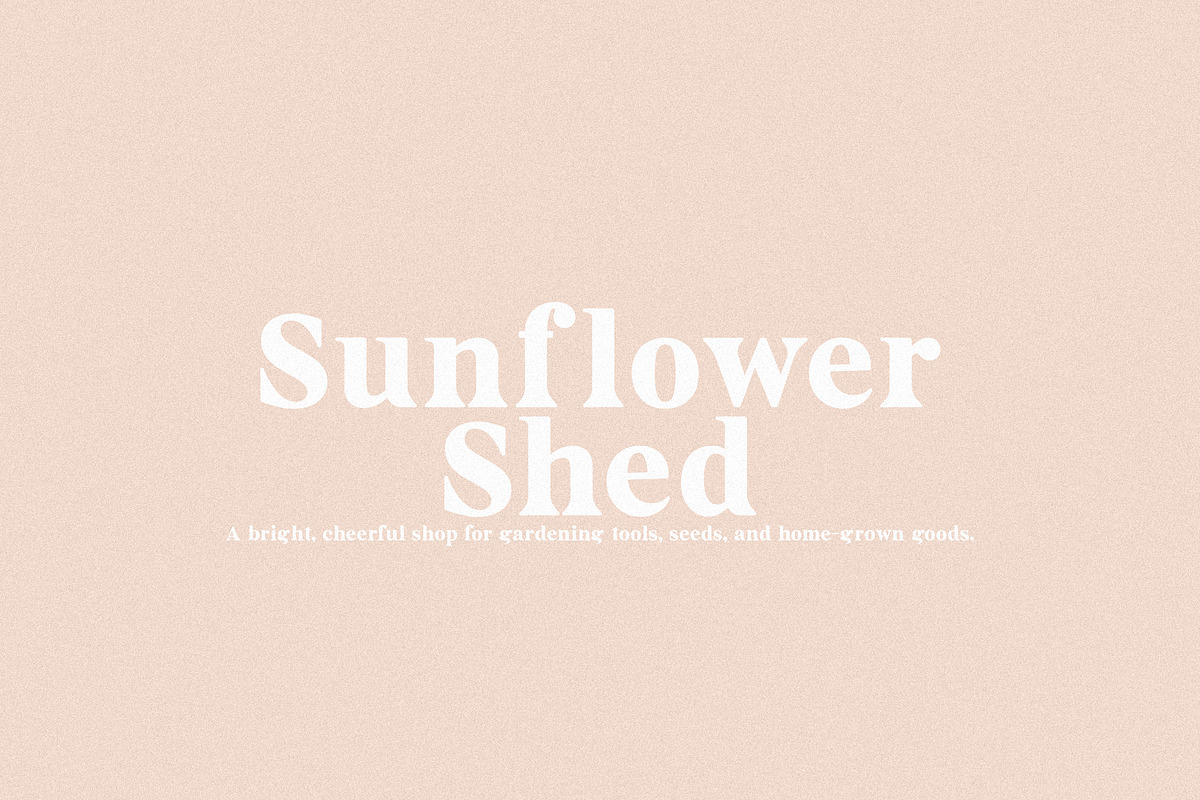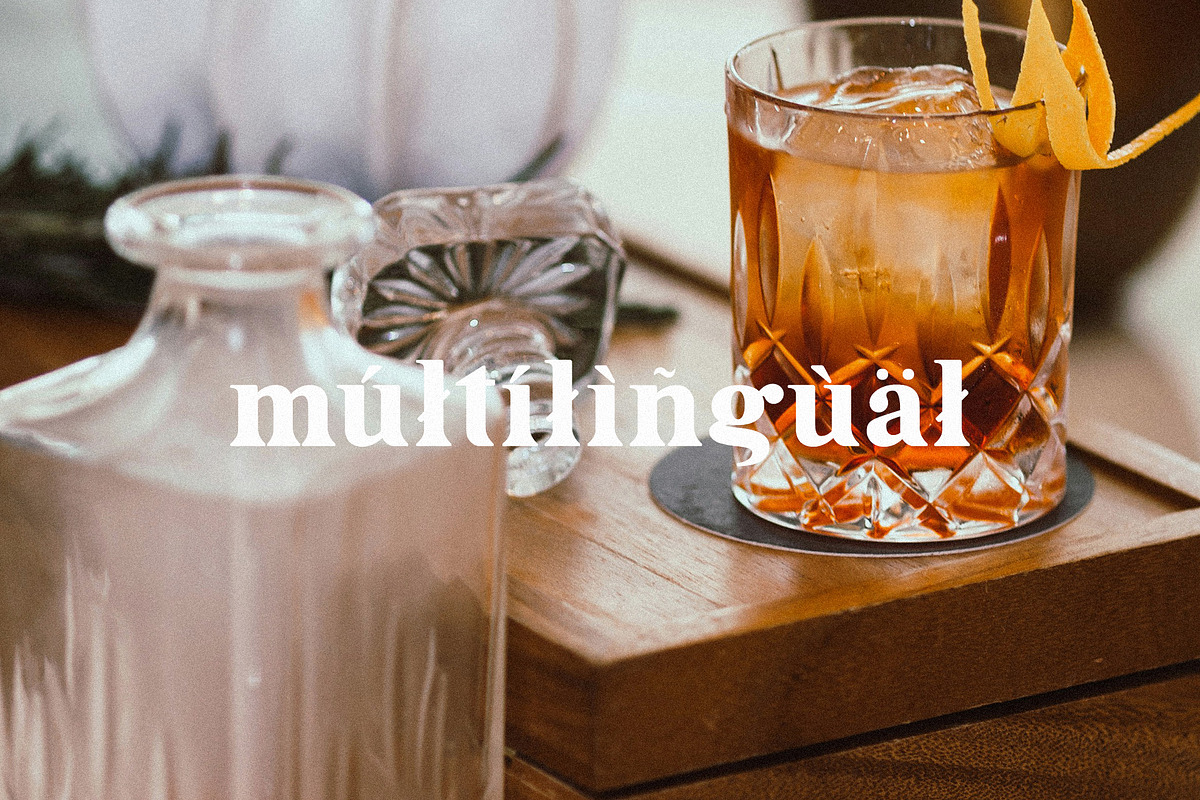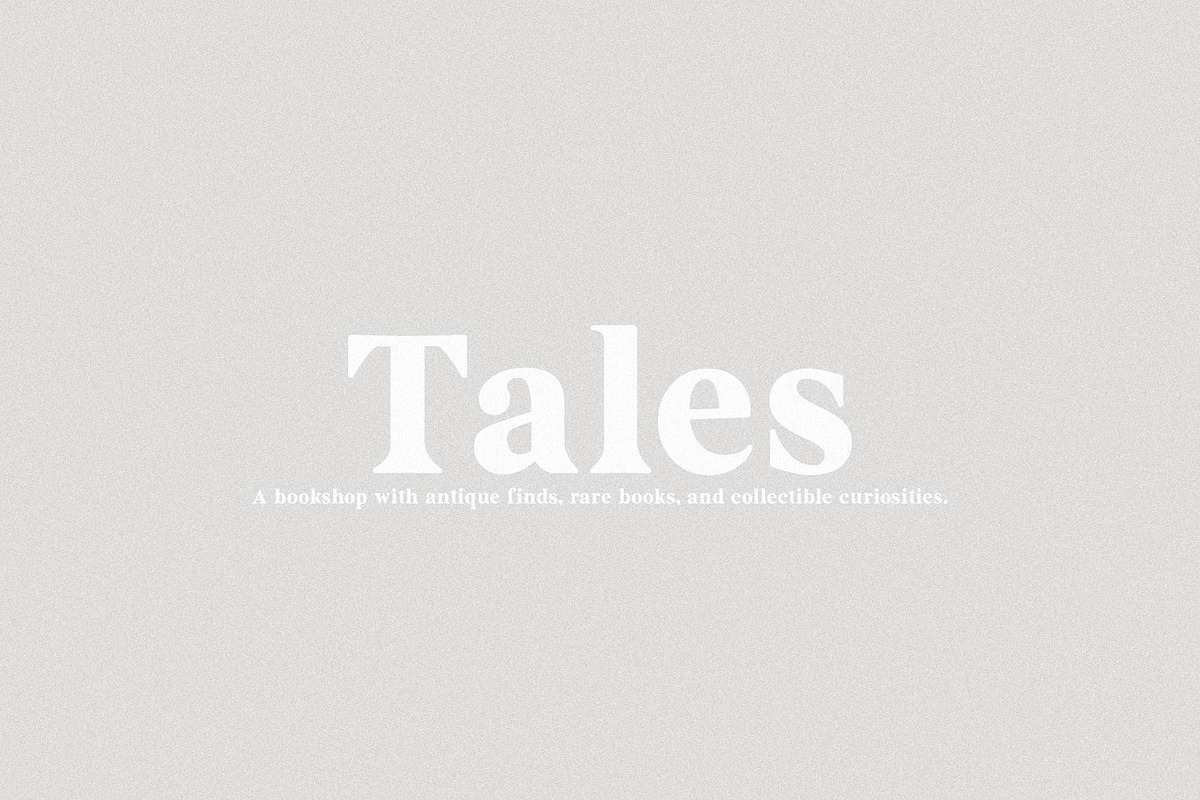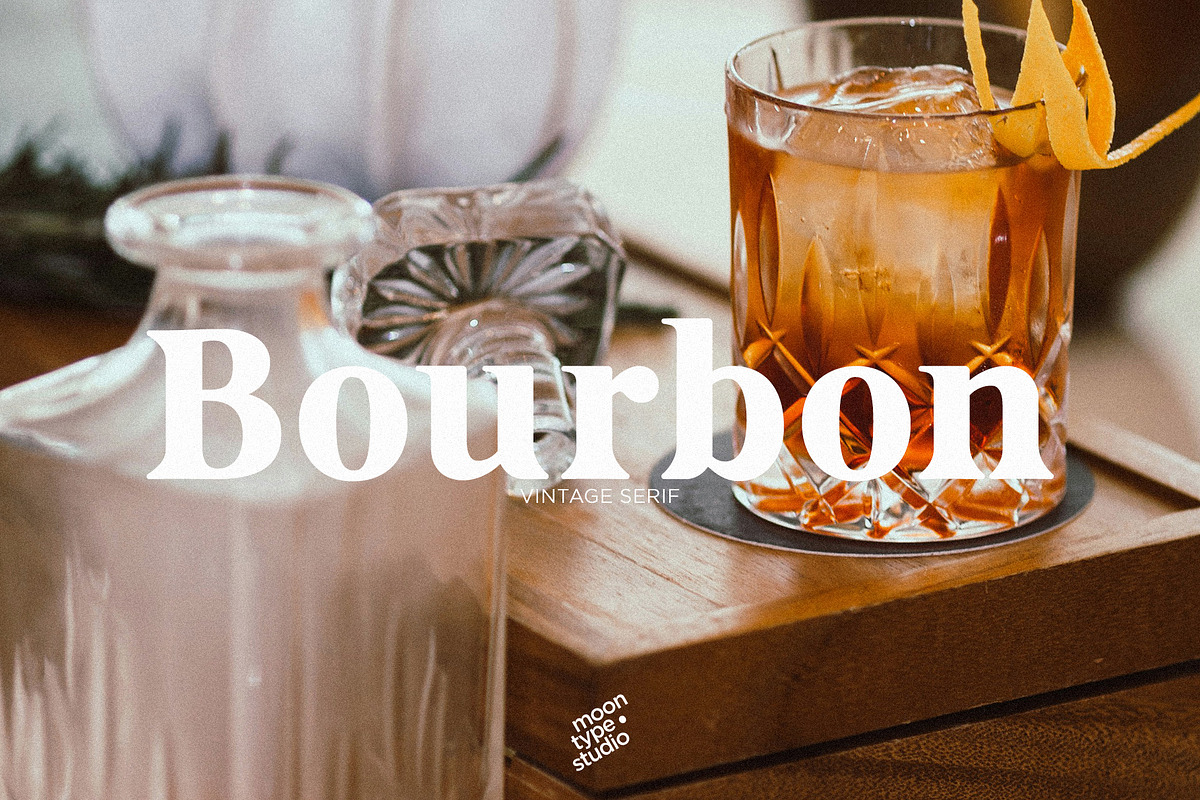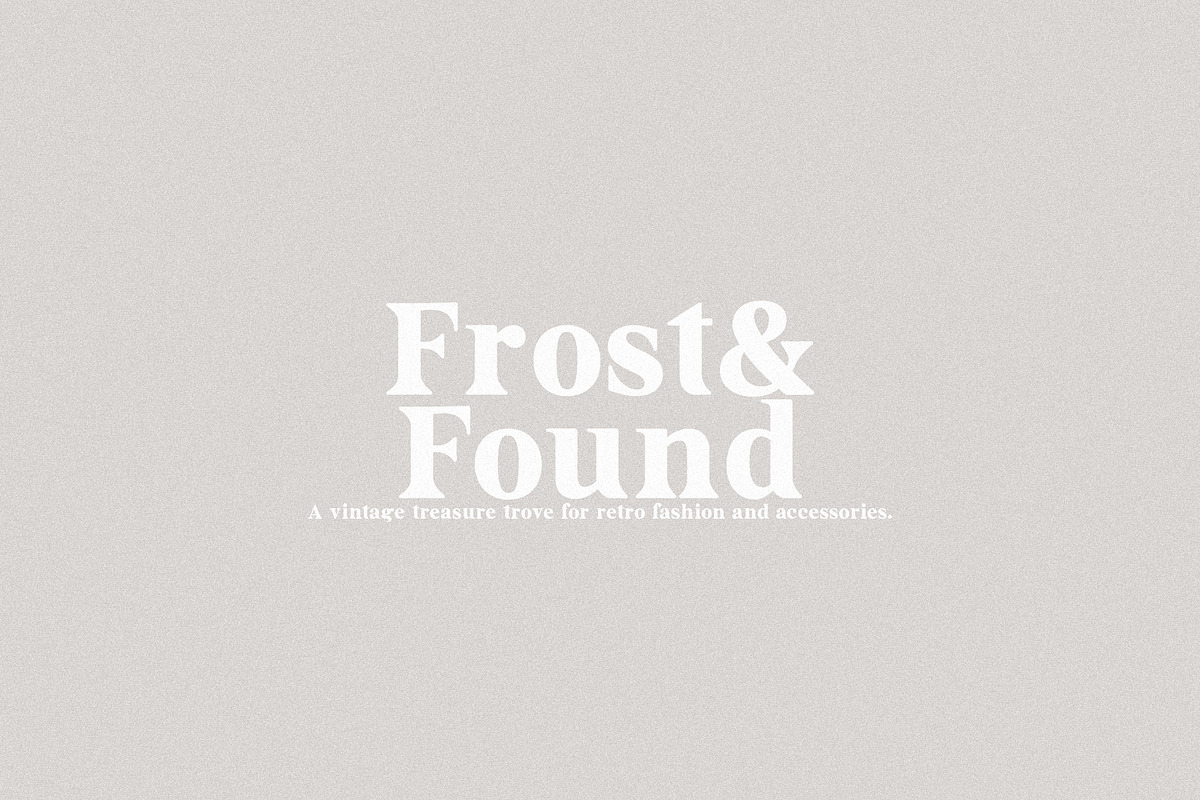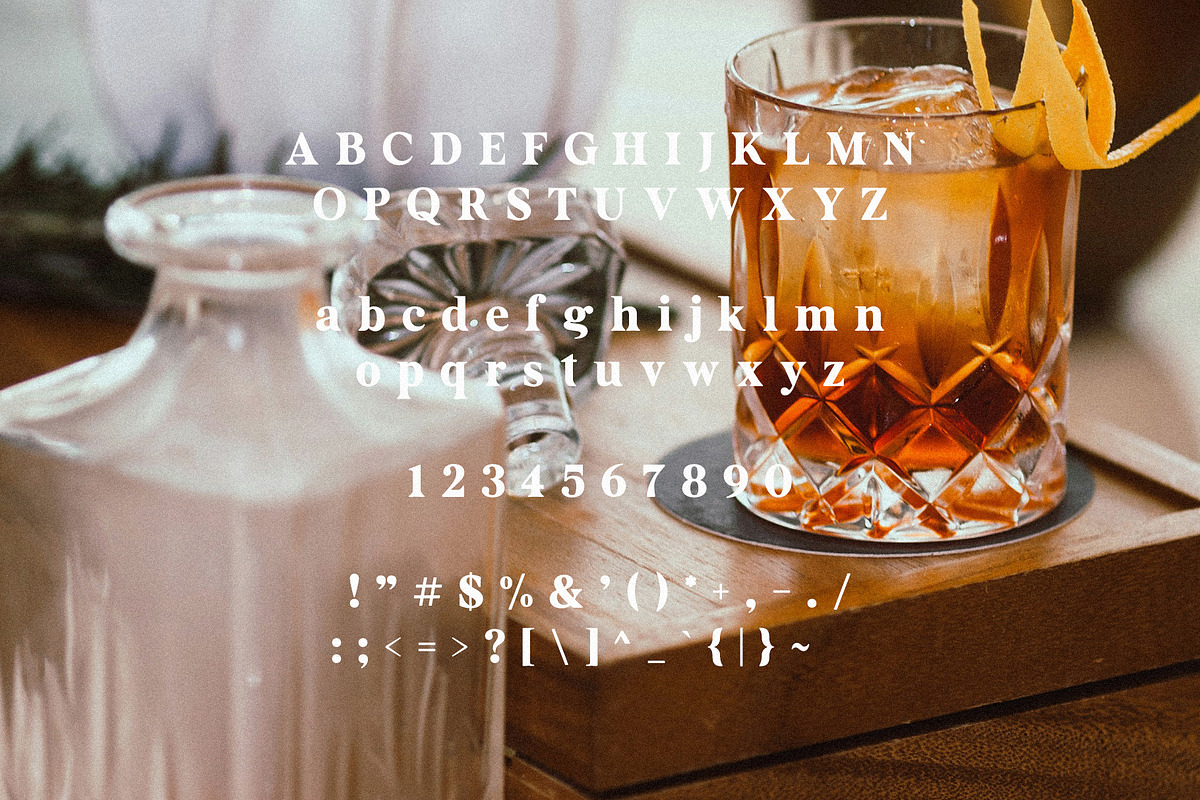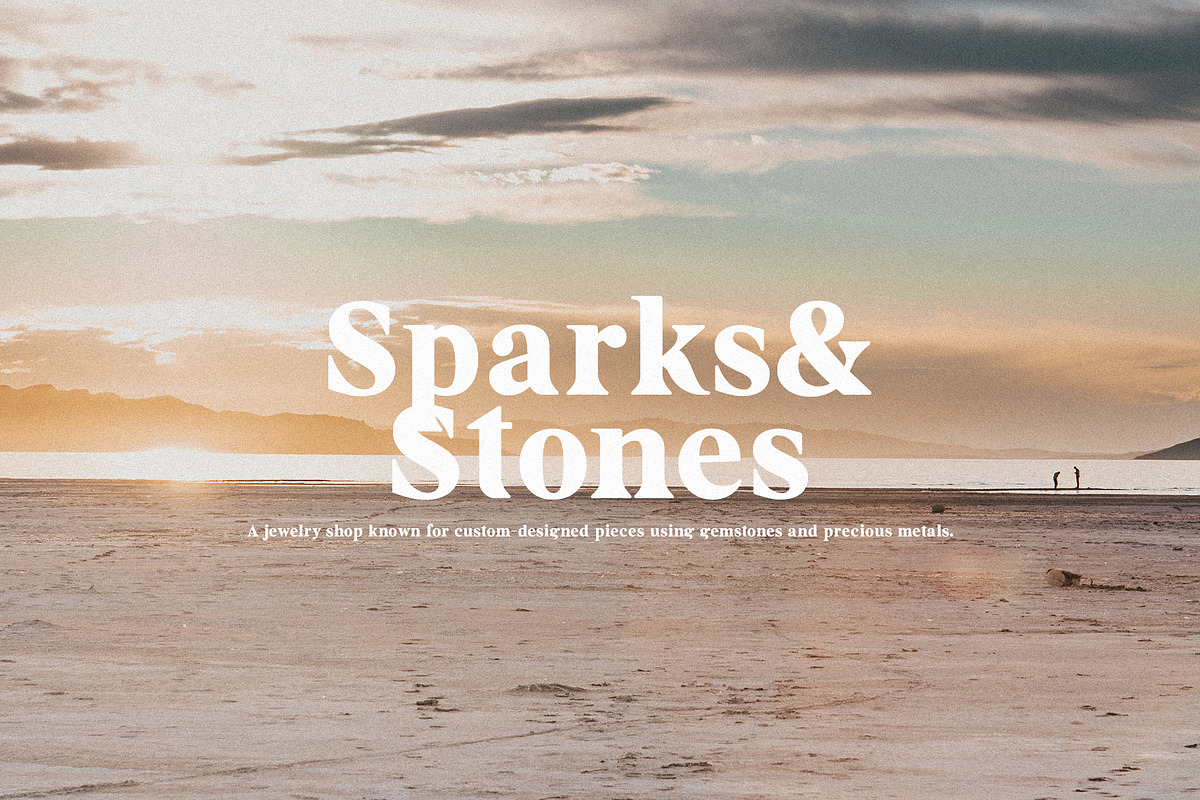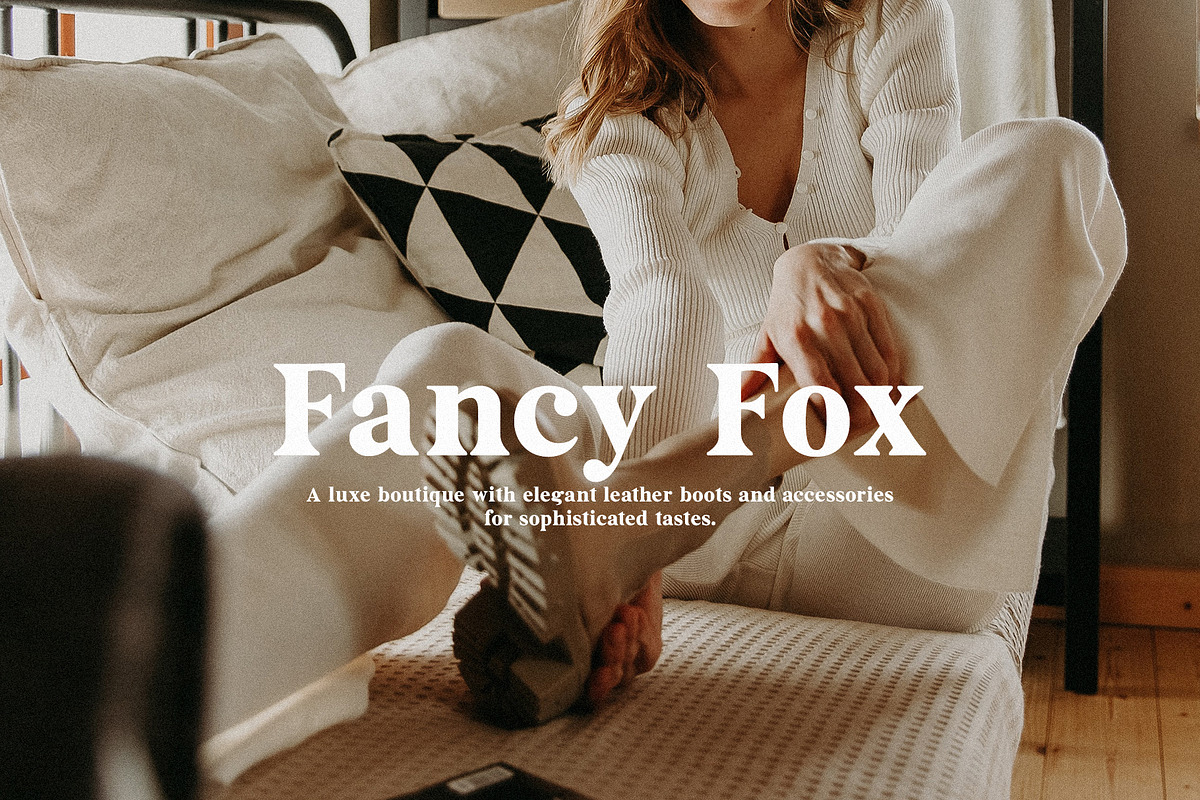
Bourbon - Vintage Serif
Bourbon - Vintage Serif: A classic typeface that exudes timeless elegance and old-world charm. With its refined serifs and sophisticated curves, Bourbon is perfect for adding a touch of vintage luxury to branding, editorial designs, and high-end projects.